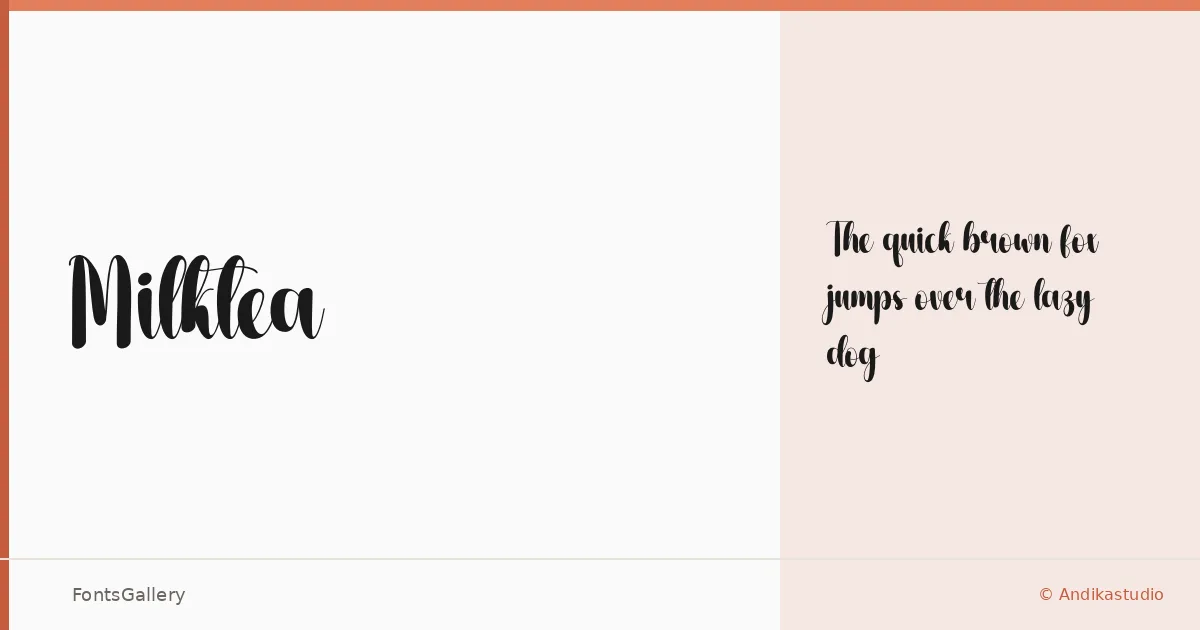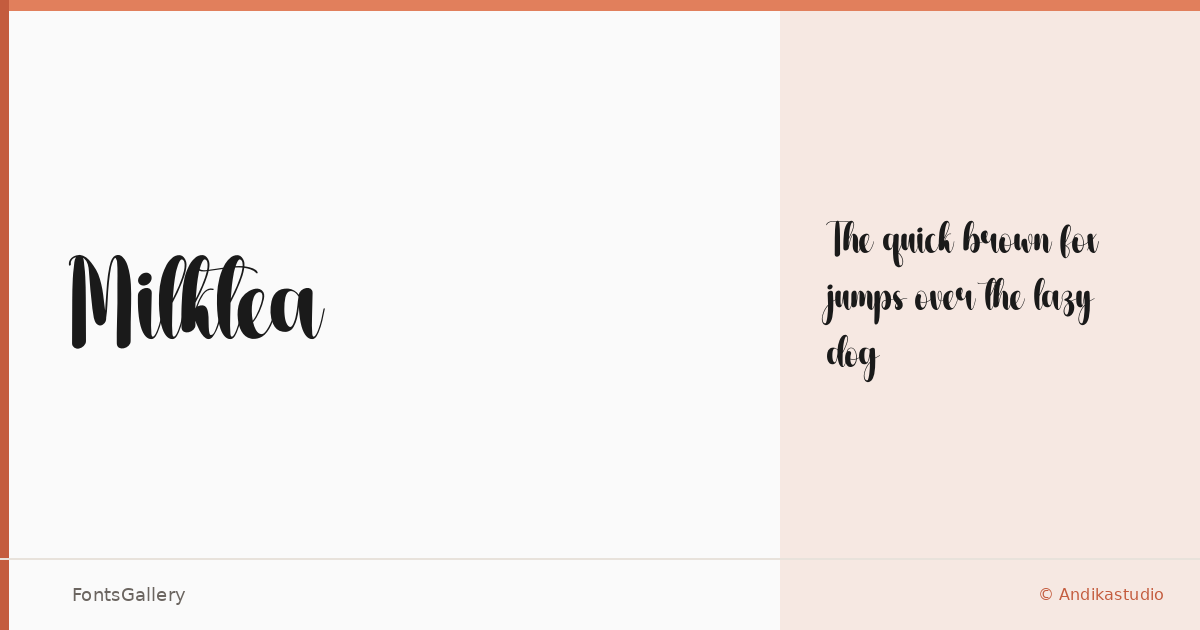
About Milktea Font
There is a softness to this script that announces itself immediately — the strokes flow with an unhurried elegance, each letterform connecting to the next with just enough flourish to feel romantic without tipping into excess. Released by Andikastudio, it arrives as a single Regular weight in OTF format, keeping things focused and intentional.
The script sits comfortably in the space between modern calligraphy and playful hand-lettering — polished enough for formal occasions, loose enough to carry warmth. Its Latin character set has a refined bounce to the baseline rhythm that reads as both elegant and approachable, the kind of letterforms that feel handwritten but never rough. The single-weight offering means the personality comes entirely from the drawing itself, and it holds up well at display sizes where those curves have room to breathe.
This is a natural choice for wedding stationery, invitation cards, and greeting cards where a romantic, personal tone is needed, and it carries that same energy into branding and social media graphics that call for something with character. For contrast, it pairs well with the clean geometry of Helvetica or the editorial weight of Canela, while Aresink, Bizantheum, and Alexandria offer more expressive combinations that keep the overall palette feeling crafted and cohesive.